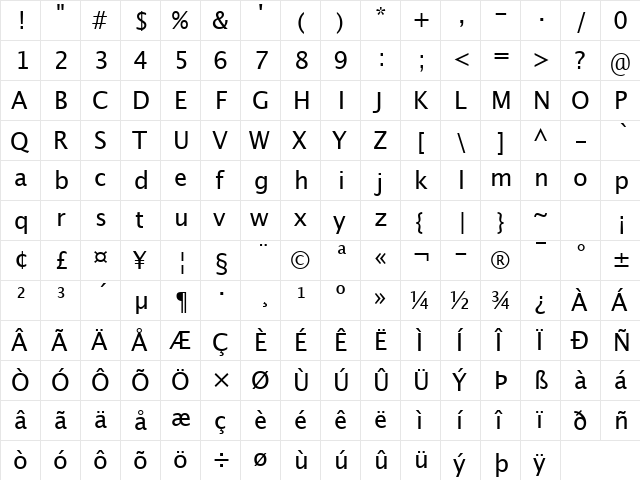
Lucida Grande Regular Font Preview
Lucida Grande Regular
Lucida Grande Regular Font Details
| Designer | Kris Holmes and Charles Bigelow |
Design Context for Lucida Grande Typeface
Lucida Grande offers clean, dependable letterforms without strong stylistic allegiance, making it a practical choice for designers who need flexibility.